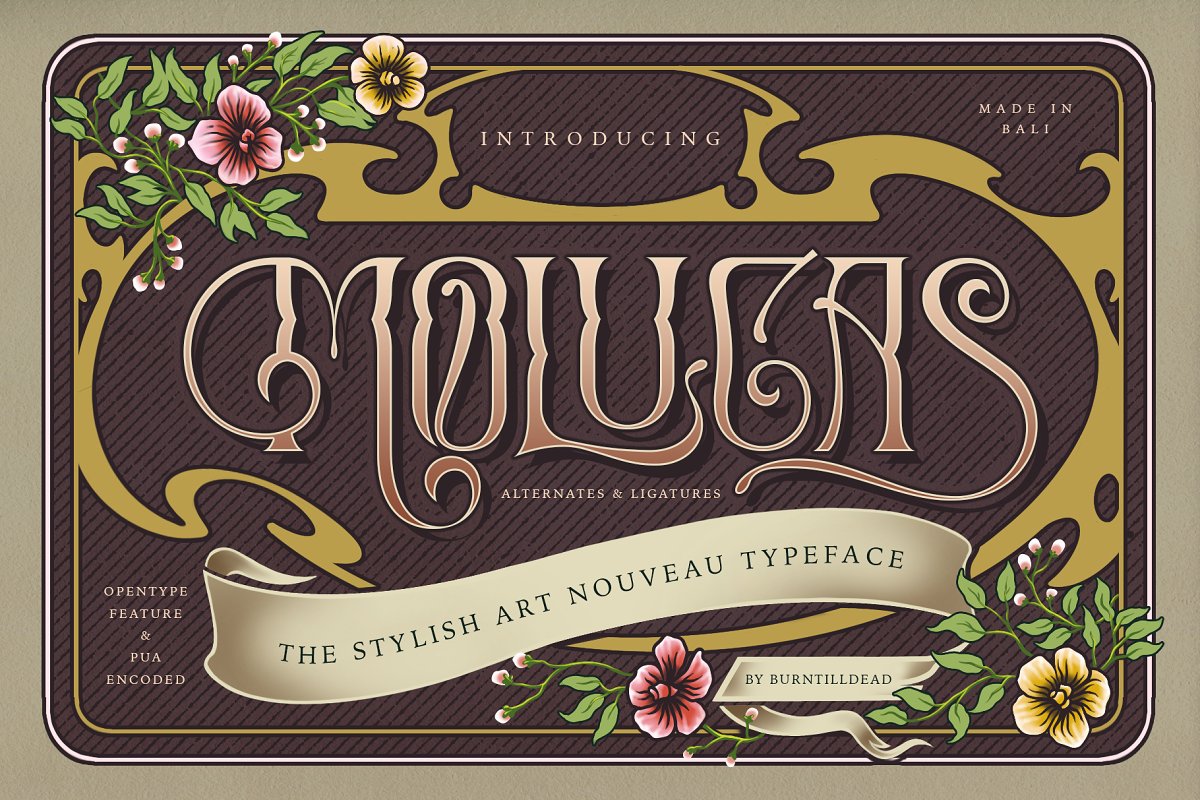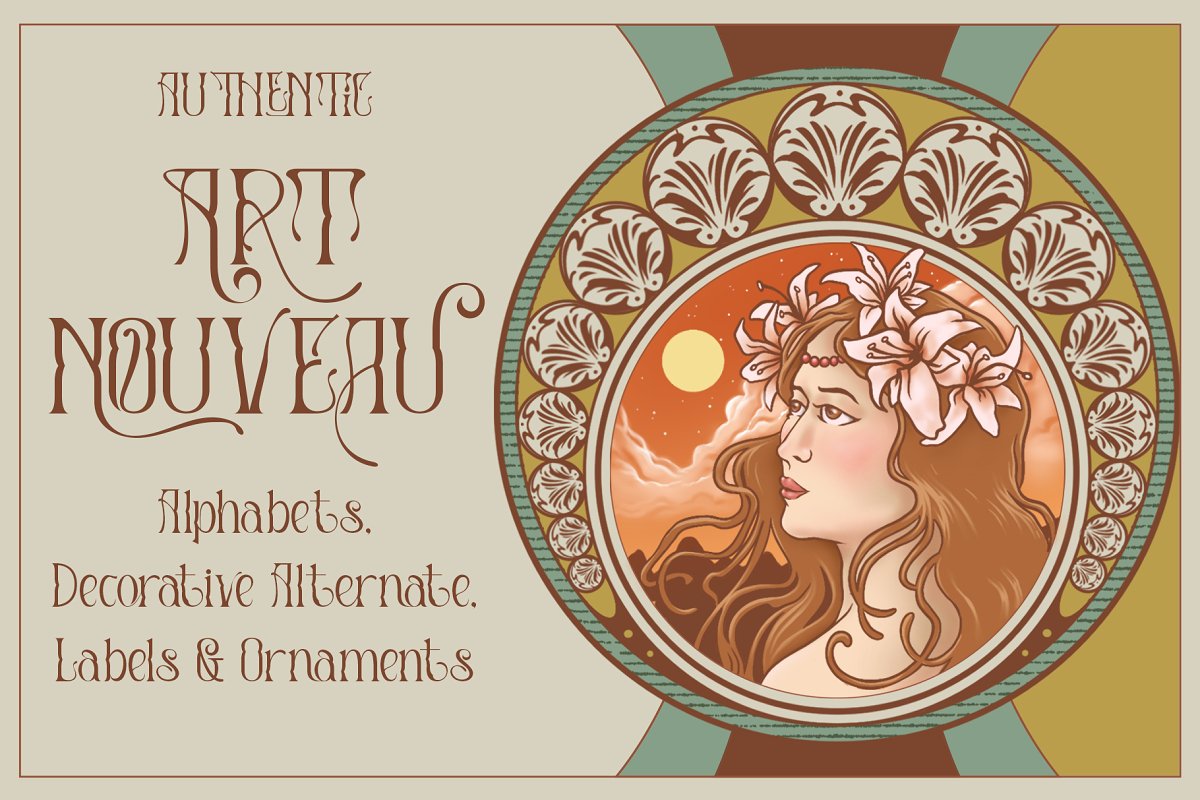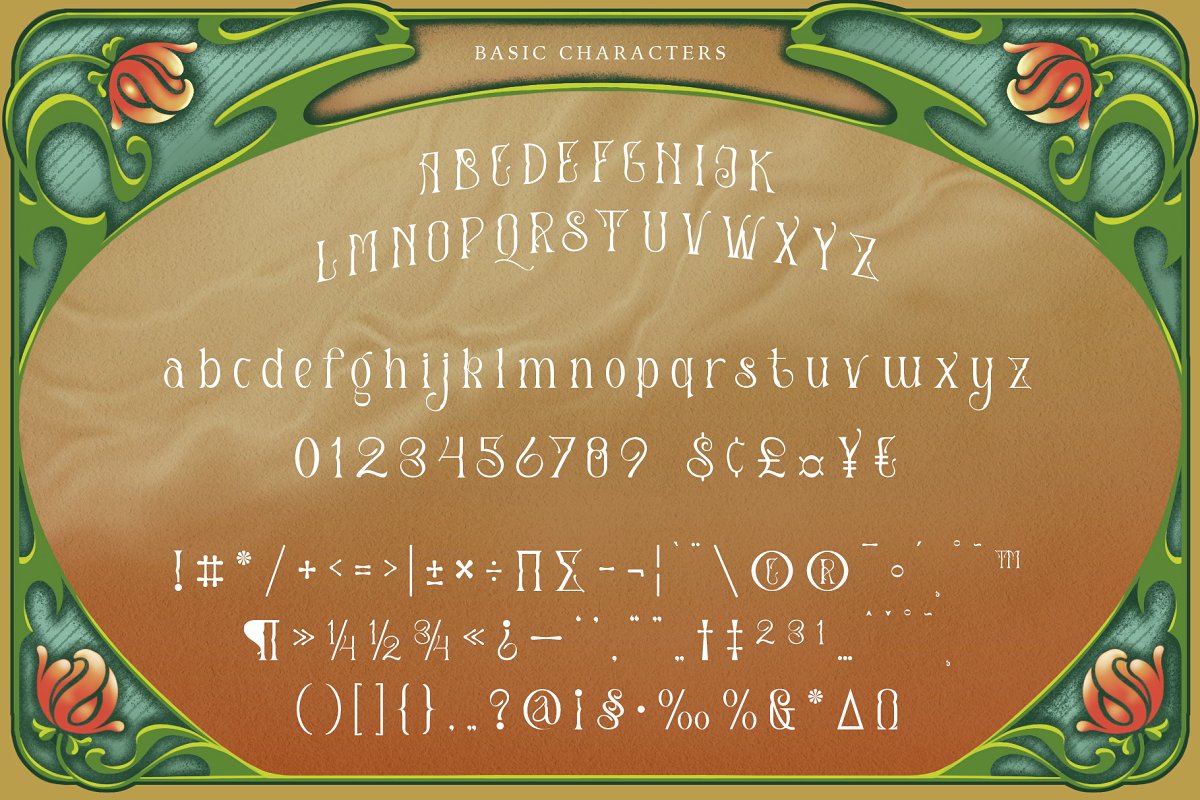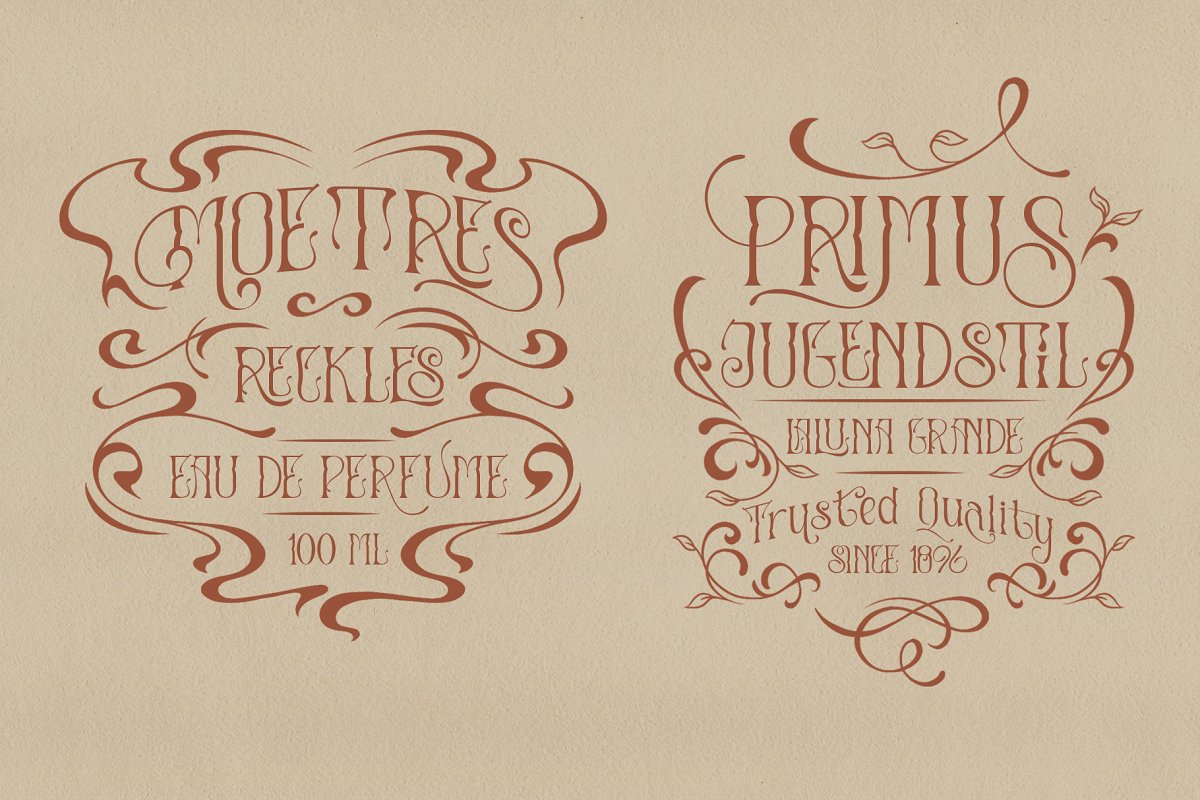
About the Molucas
Who doesn’t love with ornamental style flourish, Molucas typeface inspired by the classic sign between about 1890 and 1910, Molucas typeface will be very suitable for making logo, label designs, poster, packaging designs, etc, Supported by opentype feature (01 – 07 Alternates, ligature & fraction), Multi language ready!Product Content:Molucas, OTFMolucas